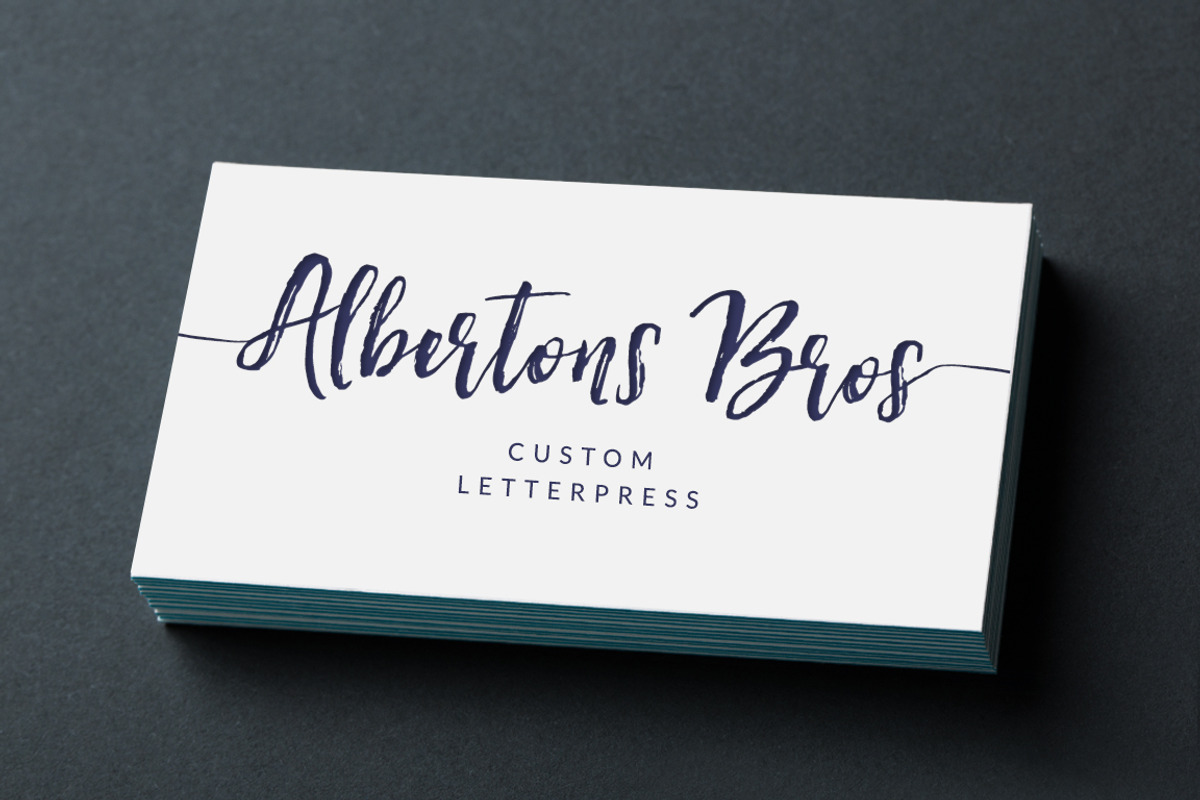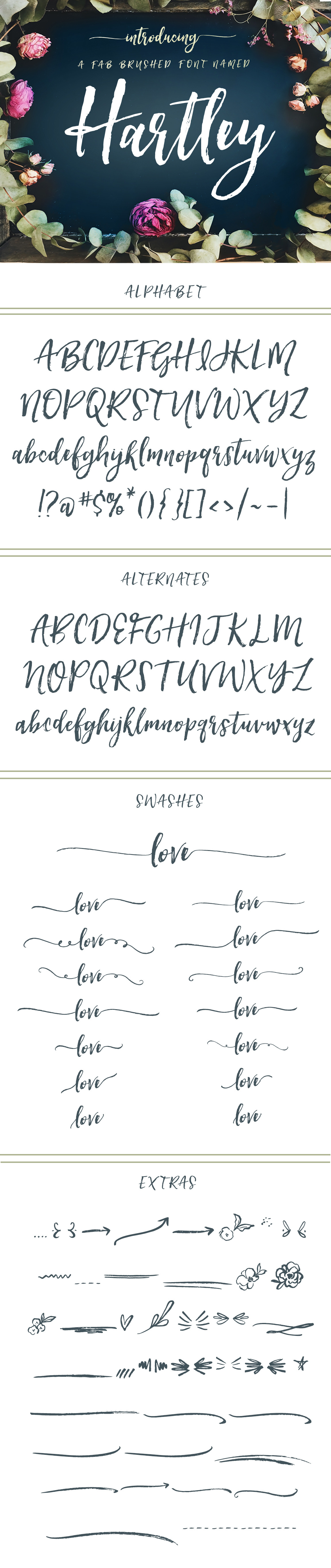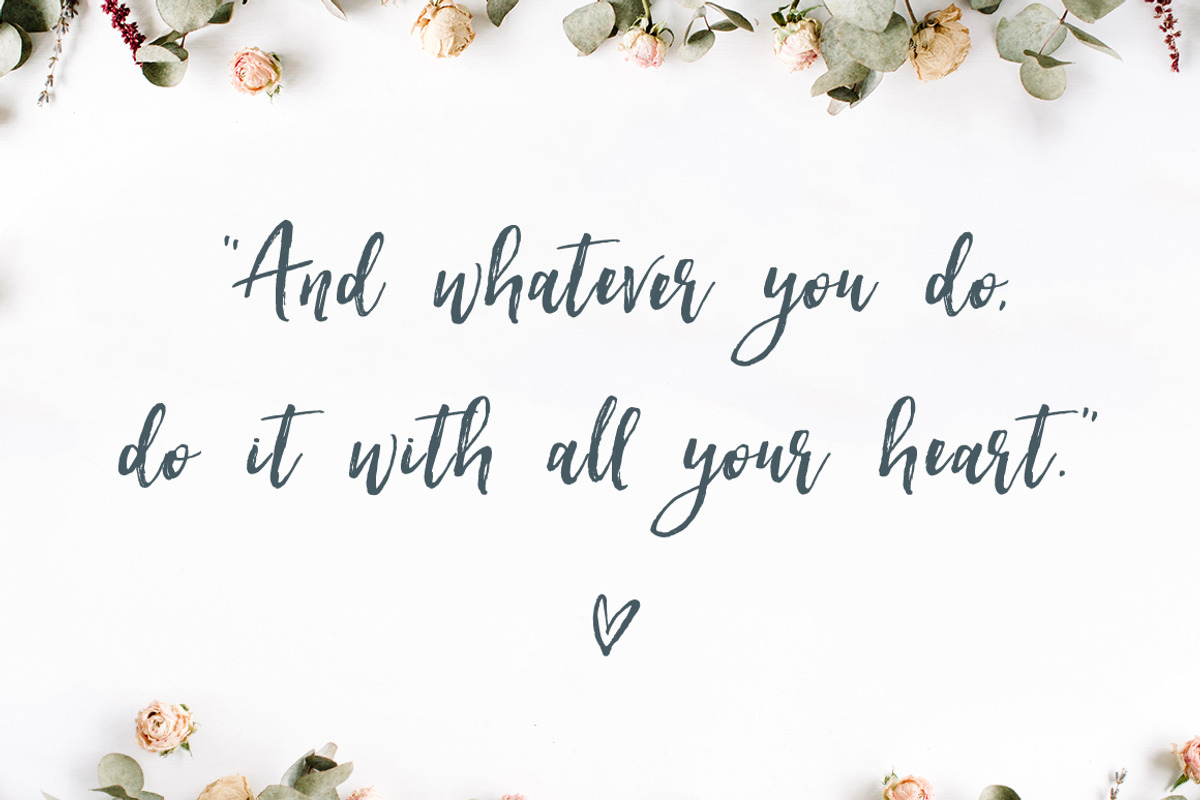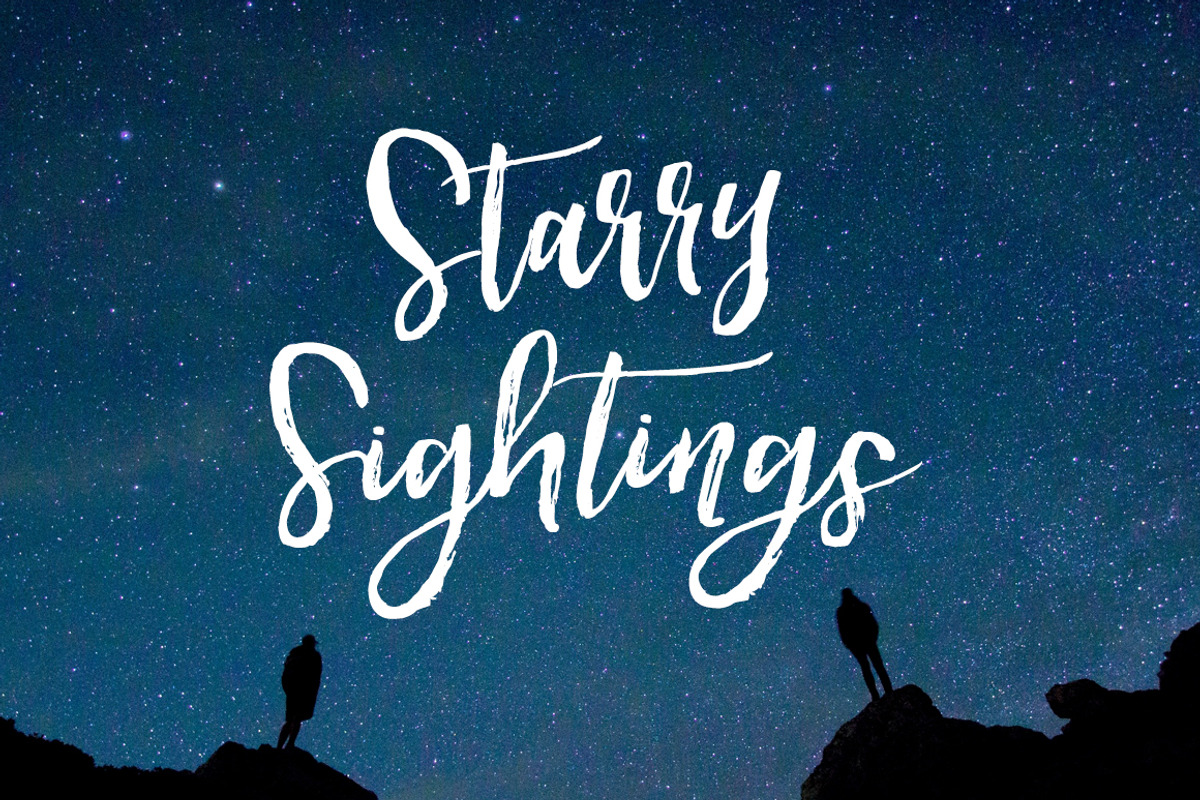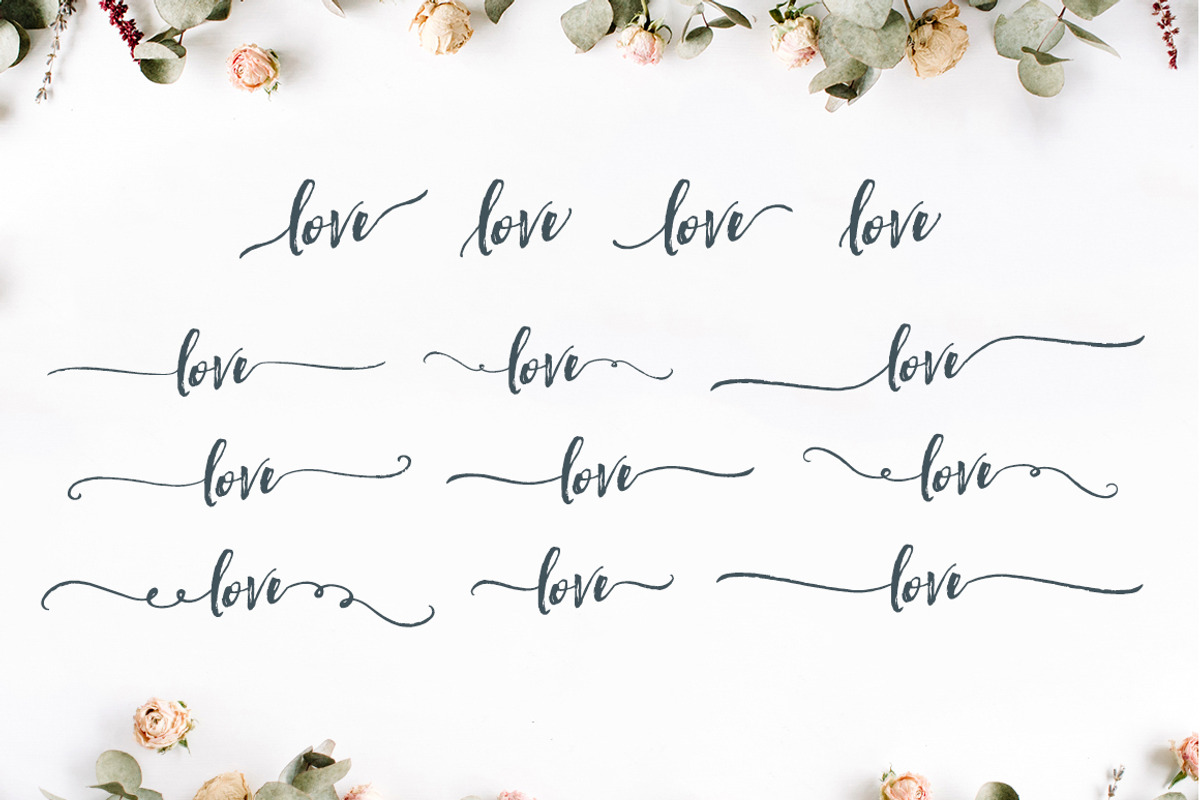
Hartley Font
Introducing Hartley, a fabulous dry textured brush script font with swashes + alternates galore. Hartley has a wonderful flow with a playful dancing baseline, unique pairs, and extras. Use Hartley for all of your hand lettering projects like invitations, greeting cards, promotional materials, websites, and branding that need that hand brushed lettering vibe. Commercial use permitted.
Hartley includes 15 front and end swashes that attach seamlessly to upper and lowercase letterforms. Flower doodles, realistic brush textured strokes, doodles, and more are also included.
Open Type features include unique pairs like ll, pp, dd, etc. Turn on Stylistic Alternates to easily use the alternate lowercase and uppercase letters in the font.
Multilingual support provided.